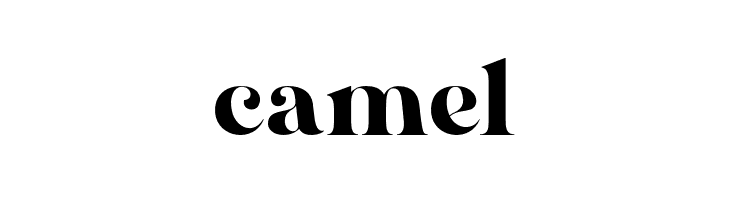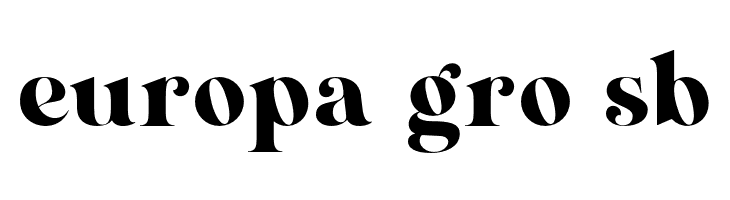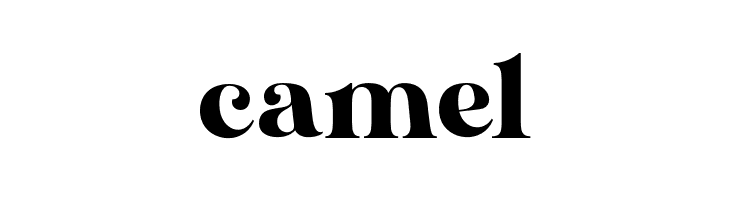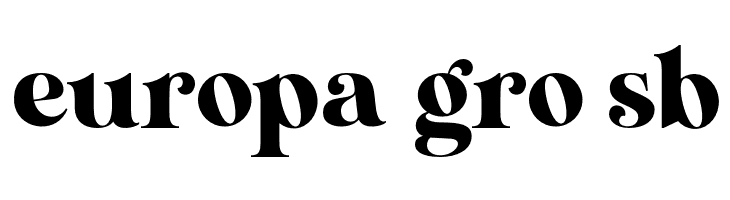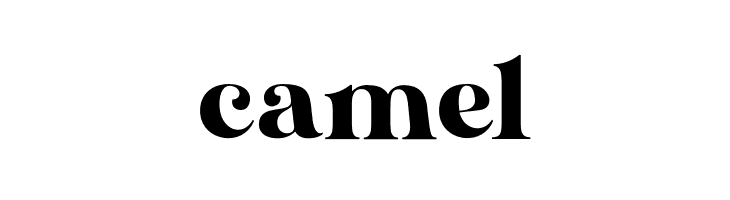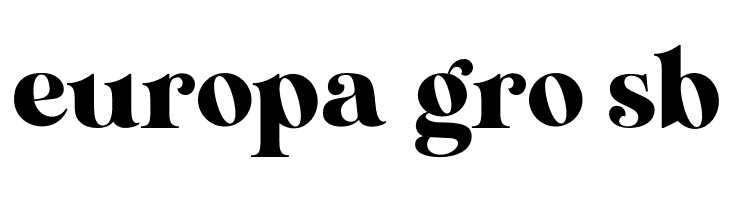
A playful, rounded font with smooth curves and consistent stroke width.
A bold, 3D block-style font with a geometric, modern aesthetic.
A bold, striped slab serif font with a unique textured appearance.
A playful and bold script font with a whimsical and dynamic style.
A bold, high-contrast serif font with a classic yet modern style.
An elegant serif font with high contrast and refined italic style.
A dynamic and elegant script font with fluid, connected letterforms.
A flowing, elegant script font with bold, dynamic uppercase and graceful lowercase letters.
A whimsical and decorative font with a hand-drawn appearance.
A bold, geometric font with angular shapes and a modern aesthetic.
A bold, rounded, and modern font with a playful and approachable style.
A modern, rounded font with a clean and approachable design.
A classic, high-contrast serif font with a semi-compressed style.
A bold, dripping font perfect for horror-themed designs.
A distressed, grungy font with a raw, hand-drawn aesthetic.
A bold, high-contrast font with elegant curves and distinctive flourishes.
A bold, dynamic font with thick strokes and unique serifs, perfect for impactful designs.
A bold, geometric font with a modern and assertive style.
A bold, geometric font with a modern and industrial style.
A bold, geometric font with a modern, futuristic aesthetic.
A bold, geometric font with a college-inspired design and modern cut-out details.
A lively, expressive handwritten font with fluid, interconnected strokes.
A bold, textured font with a hand-painted, dynamic style.
A playful, hand-drawn font with bold, rounded characters and a whimsical style.
A bold, expressive script font with dynamic curves and modern style.
Bold serif font with strong, classic characters.